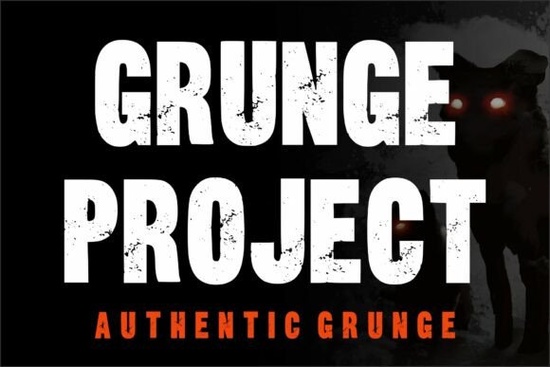
Looking for a distressed typeface that feels raw, bold, and unapologetically imperfect? The Grunge Project font is built for designers who want their work to carry the energy of street art, underground music, and rebellious creativity. It features rough textures, worn edges, and a fearless personality that makes any text look like it was pulled straight off a gritty city wall.
Whether you design posters, album covers, streetwear logos, or social media graphics, this font gives your projects a handcrafted, authentic feel that polished typefaces simply can't match.
What Makes a Grunge Font Worth Using?
Grunge fonts stand out because they break the rules. While clean sans-serifs and elegant serifs have their place, sometimes a project needs something louder something that feels lived in. A distressed typeface like this one adds depth and character to designs that need to grab attention fast.
Here's why designers keep reaching for grunge-style fonts:
- They create instant mood. A single word in a rough, textured font can set the entire tone for a poster or product listing.
- They add authenticity. Perfect, smooth lettering can feel corporate. Distressed fonts feel human and real.
- They work across many projects. From vintage layouts to modern streetwear branding, grunge fonts fit surprisingly well in different contexts.
The key is choosing a font that's distressed in the right way not so rough that it's unreadable, but rough enough to make an impact. That balance is exactly what this typeface nails.
What Types of Projects Work Best With This Font?
This distressed typeface is a strong fit for a wide range of creative work. Here are some of the most popular uses:
- Music posters and album covers especially rock, punk, metal, and indie genres
- Streetwear and apparel branding logos, taglines, and print-on-demand designs
- Movie titles and event flyers anything that needs a bold, edgy vibe
- Social media graphics quote posts, announcements, and promotional visuals
- Product packaging labels for craft goods, beverages, or handmade items
- YouTube thumbnails and channel art when you need text that pops on screen
How Does It Compare to Other Display Fonts?
Grunge fonts occupy a specific niche, but it helps to understand how they stack up against other display styles. If you're building a font collection, consider mixing different moods for different projects.
Each of these fonts serves a different creative purpose. The grunge typeface fills the slot for raw, high-energy projects where you want text that feels intense and unpolished in the best possible way.
Tips for Getting the Most Out of Distressed Fonts
Using a grunge font well takes a little intention. Here are a few practical tips:
- Pair it with clean elements. A rough font next to a simple sans-serif or a clean layout creates contrast that's visually striking.
- Use it sparingly. Grunge fonts work best for headlines, titles, and short phrases. Long paragraphs in a distressed font can be hard to read.
- Experiment with color. Try placing your grunge text on dark backgrounds, textured surfaces, or over photographic elements for the best results.
- Adjust spacing carefully. Distressed letterforms sometimes need slightly more tracking to stay legible at smaller sizes.
- Layer with textures. Combine the font with worn paper backgrounds, ink splatters, or grain overlays to amplify the grunge effect.
- ✅ Test the font at different sizes to see how the distressing looks
- ✅ Pair it with 1–2 complementary fonts from your collection
- ✅ Create a sample design to see how it fits your project's overall style